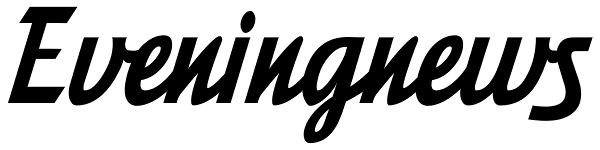
Eveningnews
Since many years I live in Munich and read the daily newspaper Abendzeitung. One morning they had redesigned the paper, using Eric Gill's Joanna for the body copy and a tweaked version of Franklin Gothic for the headlines. Since both typefaces are...